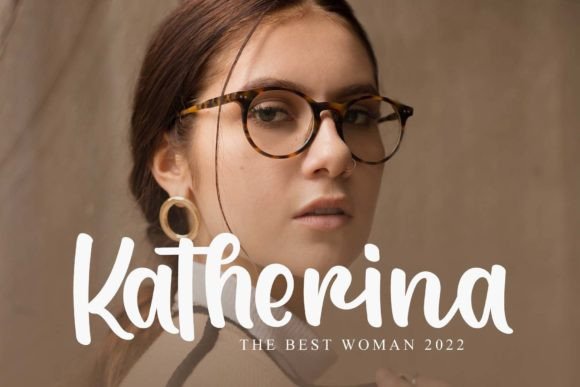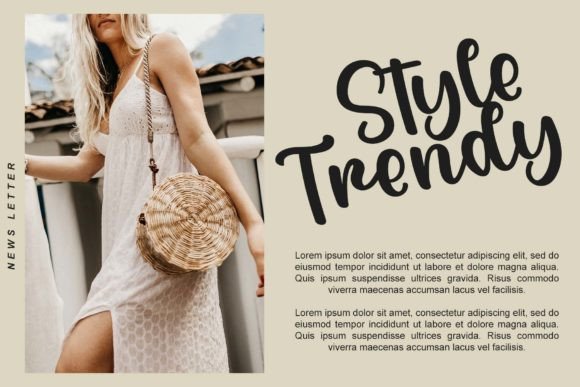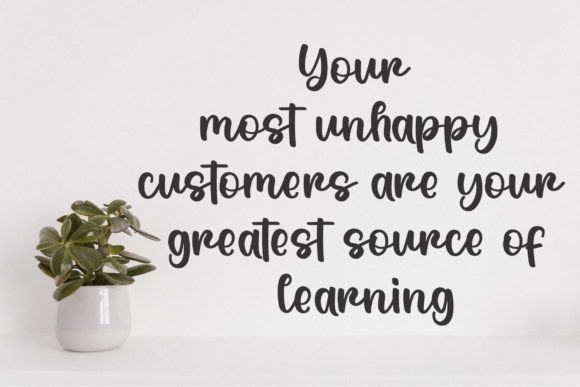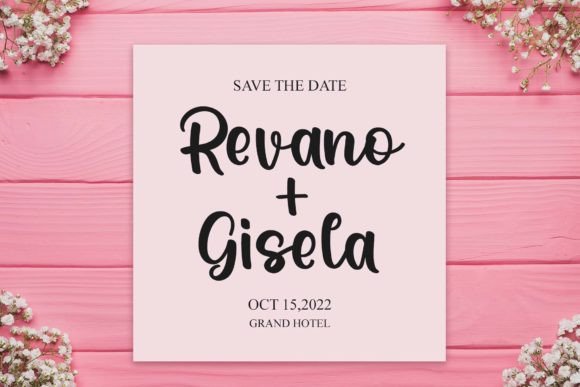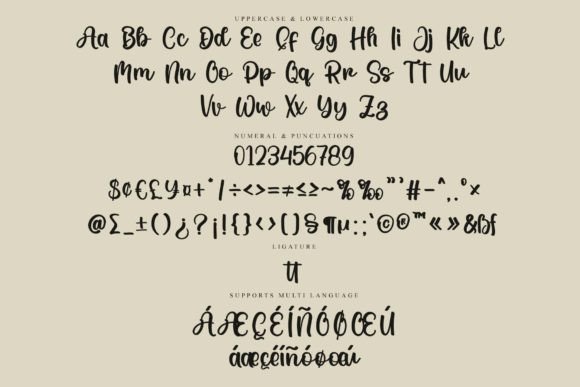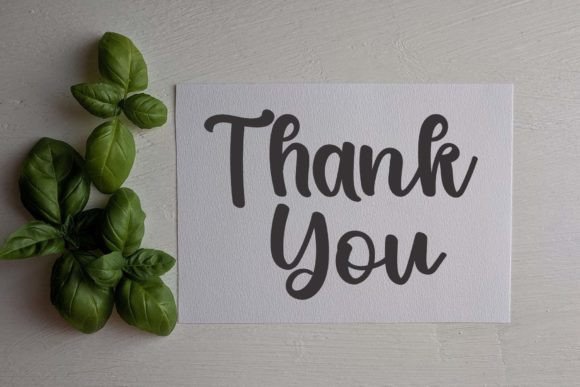
Hippie Family Font
About Hippie Family Font
**Hippie Family Font: A Charming and Elegant Handwritten Typeface**
Introducing Hippie Family, a font that embodies both charm and elegance. This handwritten typeface adds a touch of sophistication and whimsy to your design projects, making it an ideal choice for various occasions. Here’s why Hippie Family deserves a special place in your font collection:
**Charming Aesthetic:**
Hippie Family exudes a charming and inviting aesthetic that captivates the viewer. Its unique and playful characters draw the eye and add a delightful personality to your text.
**Elegant Touch:**
While it carries a sense of charm, this font doesn’t compromise on elegance. Its well-balanced and graceful characters bring a touch of sophistication to your designs, making them stand out.
**Versatile Applications:**
Hippie Family is a versatile font that suits a wide range of design applications. It shines on wedding invitations, thank you cards, quotes, greeting cards, logos, business cards, and various other projects that benefit from a handwritten touch.
**Timeless Appeal:**
The classic and timeless appeal of Hippie Family ensures that your designs remain relevant and attractive throughout the years. It’s a font that doesn’t go out of style.
**Engaging and Relatable:**
This font’s charming and elegant nature makes your text more engaging and relatable to your audience. It creates an emotional connection that’s hard to achieve with standard fonts.
**Ideal for Special Occasions:**
When you’re working on projects related to special occasions like weddings, birthdays, or heartfelt thank you notes, Hippie Family brings a sense of warmth and sincerity that’s perfect for the occasion.
**Stunning Visuals:**
The visually pleasing aesthetics of Hippie Family elevate your designs, making them visually stunning. It’s the kind of font that turns heads and leaves a lasting impression.
**Enhance Branding:**
For businesses or brands that want to convey a friendly and approachable image, Hippie Family is an excellent choice. It adds a personal touch to branding materials that fosters a sense of connection.
**A Must-Have Typeface:**
In your design toolkit, Hippie Family is the must-have font for infusing charm, elegance, and a handwritten feel into your projects. It’s like having a versatile tool that can transform ordinary designs into extraordinary ones.
**Add a Touch of Charm and Elegance:**
In summary, Hippie Family is a font that brings both charm and elegance to your designs. It’s perfect for special occasions, branding, and various projects where a handwritten touch is needed.
**Elevate Your Designs with Hippie Family:**
Don’t miss the opportunity to enhance your designs with the charming and elegant appeal of Hippie Family. It’s the font that adds that extra touch of sophistication and whimsy to your creative work.